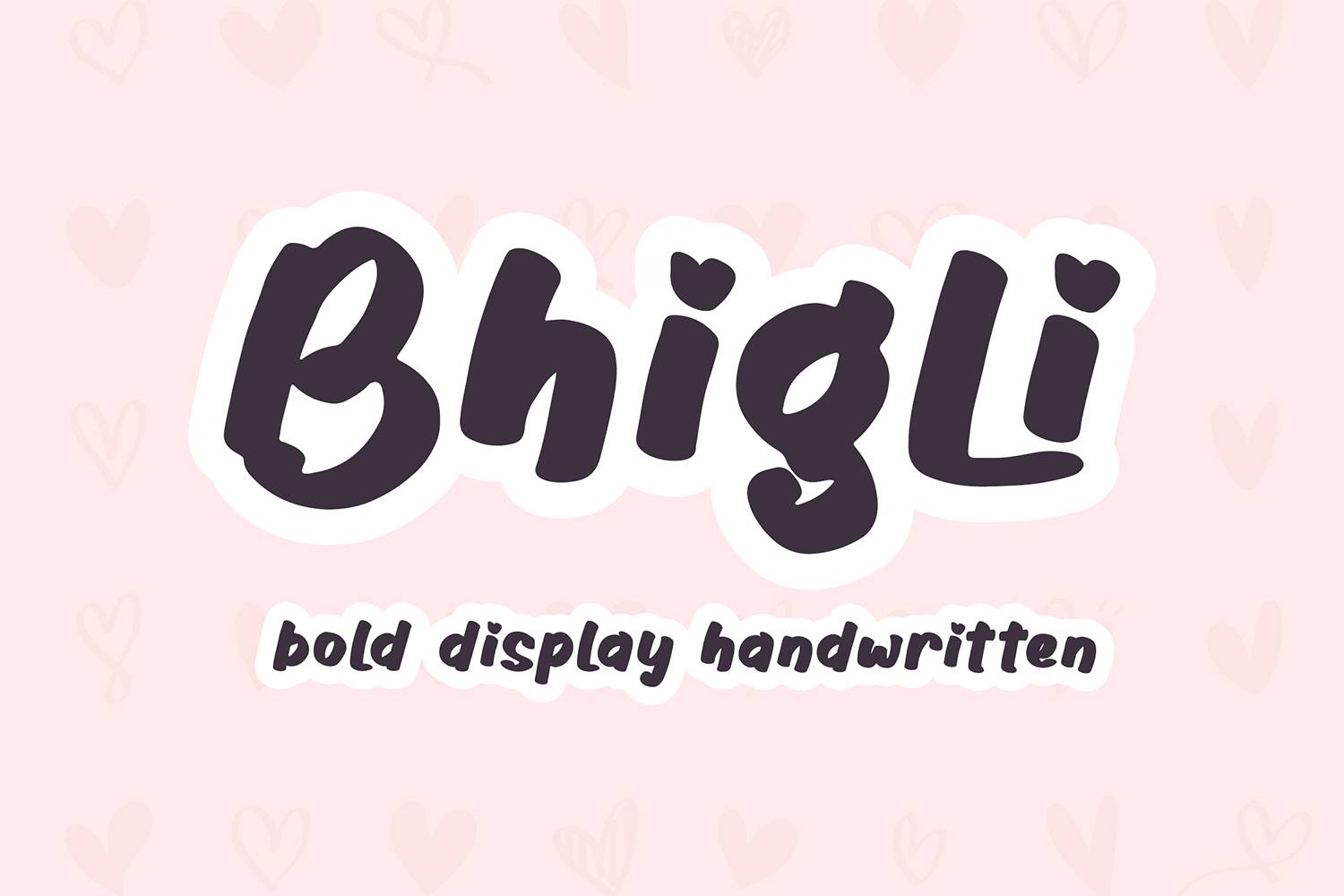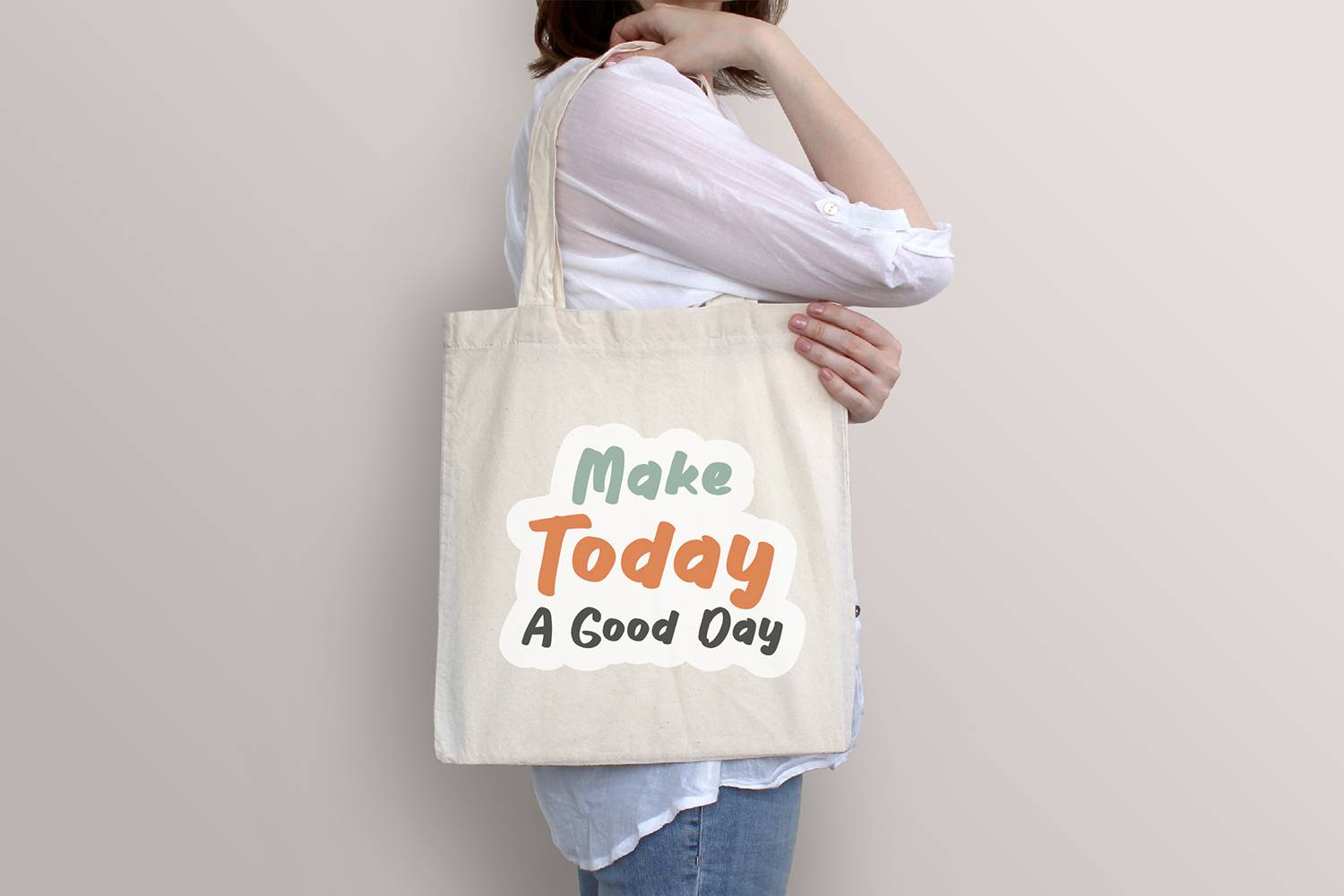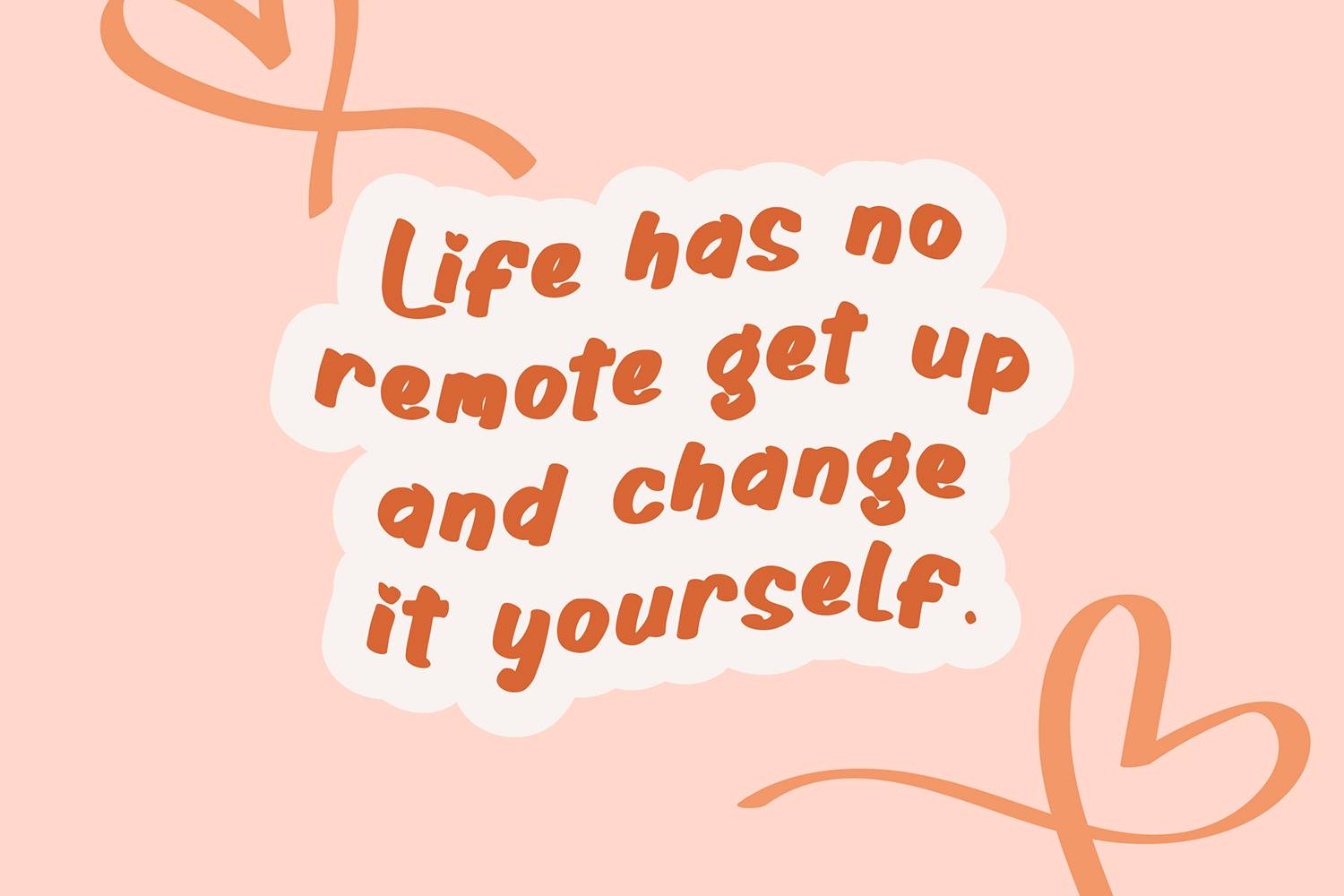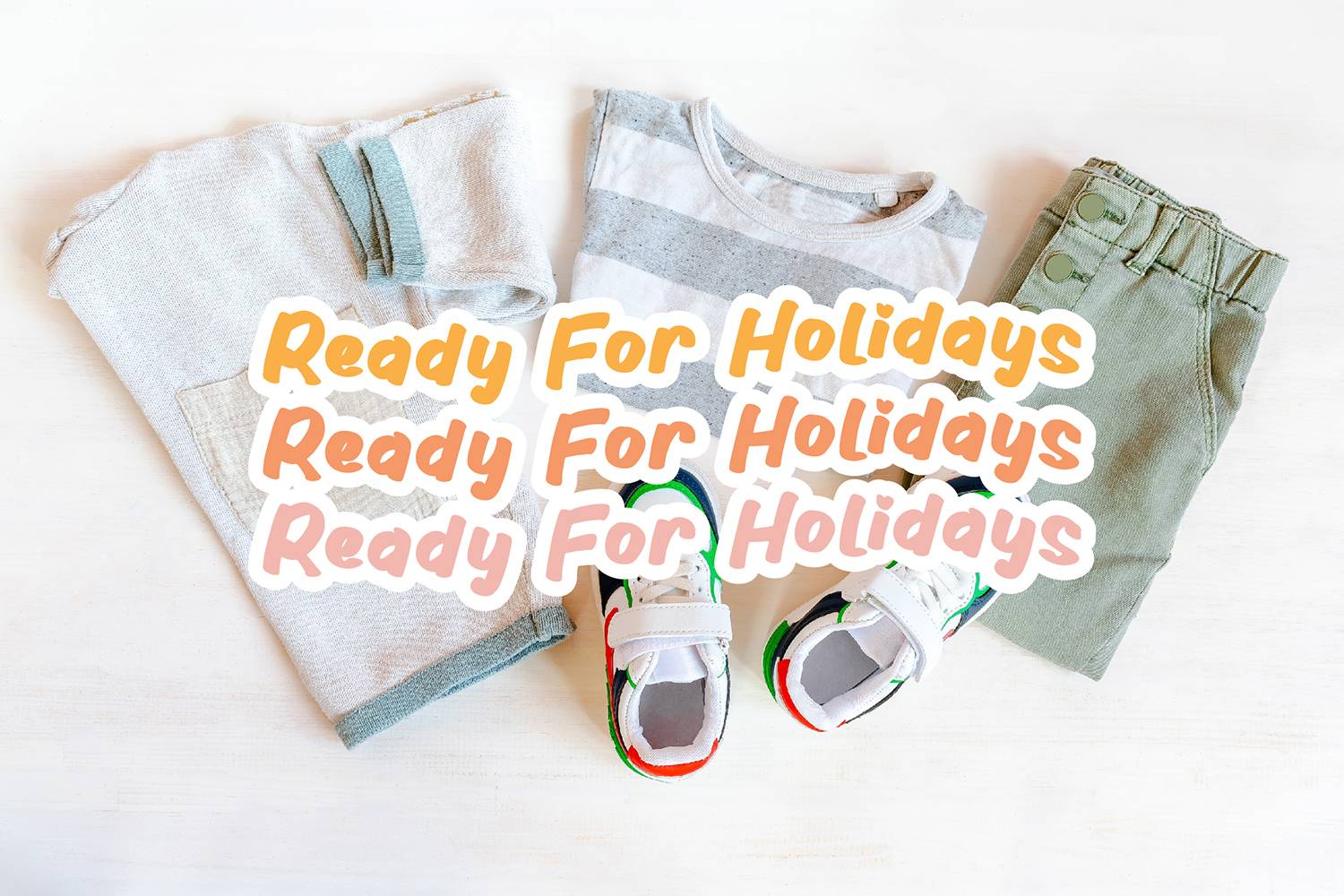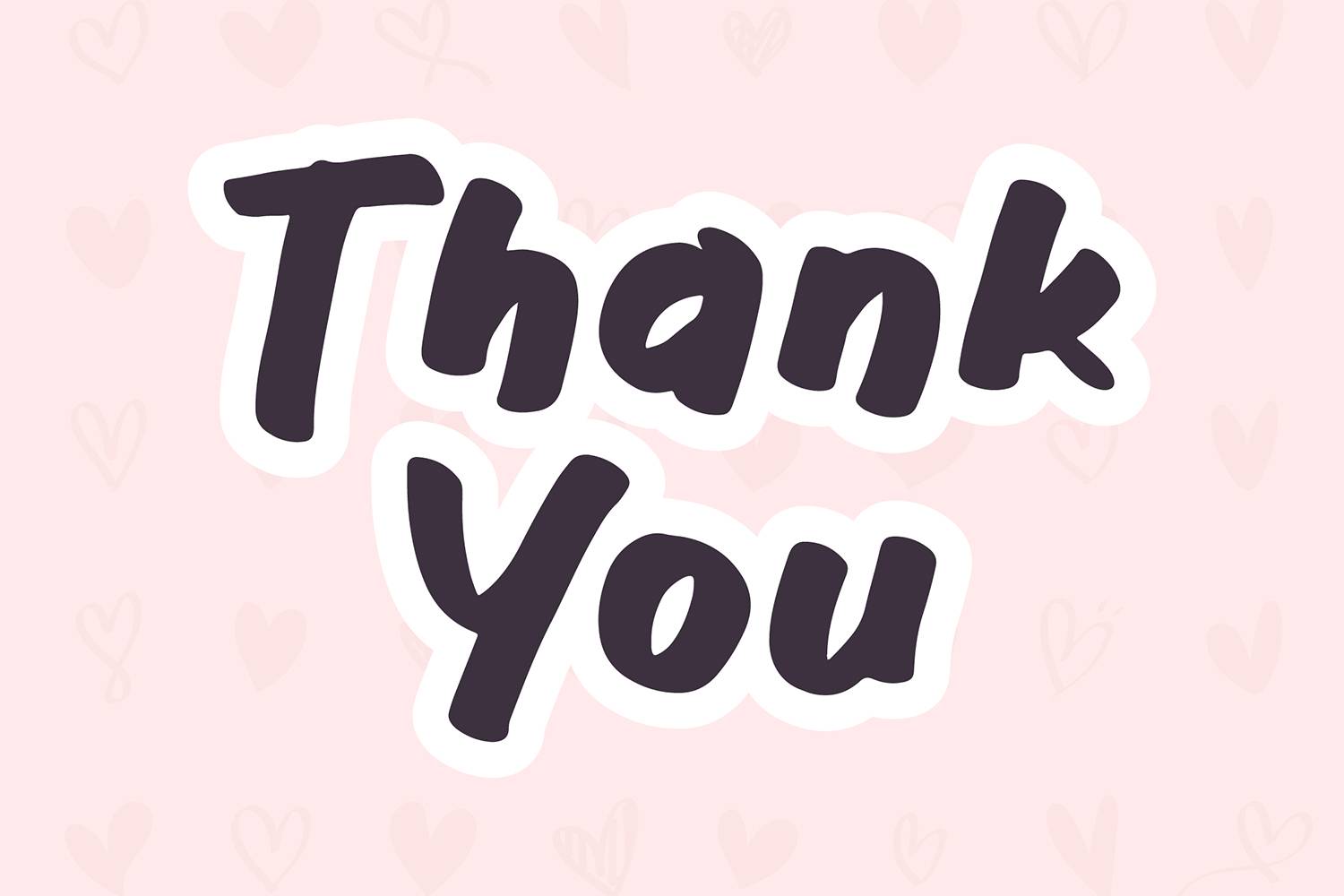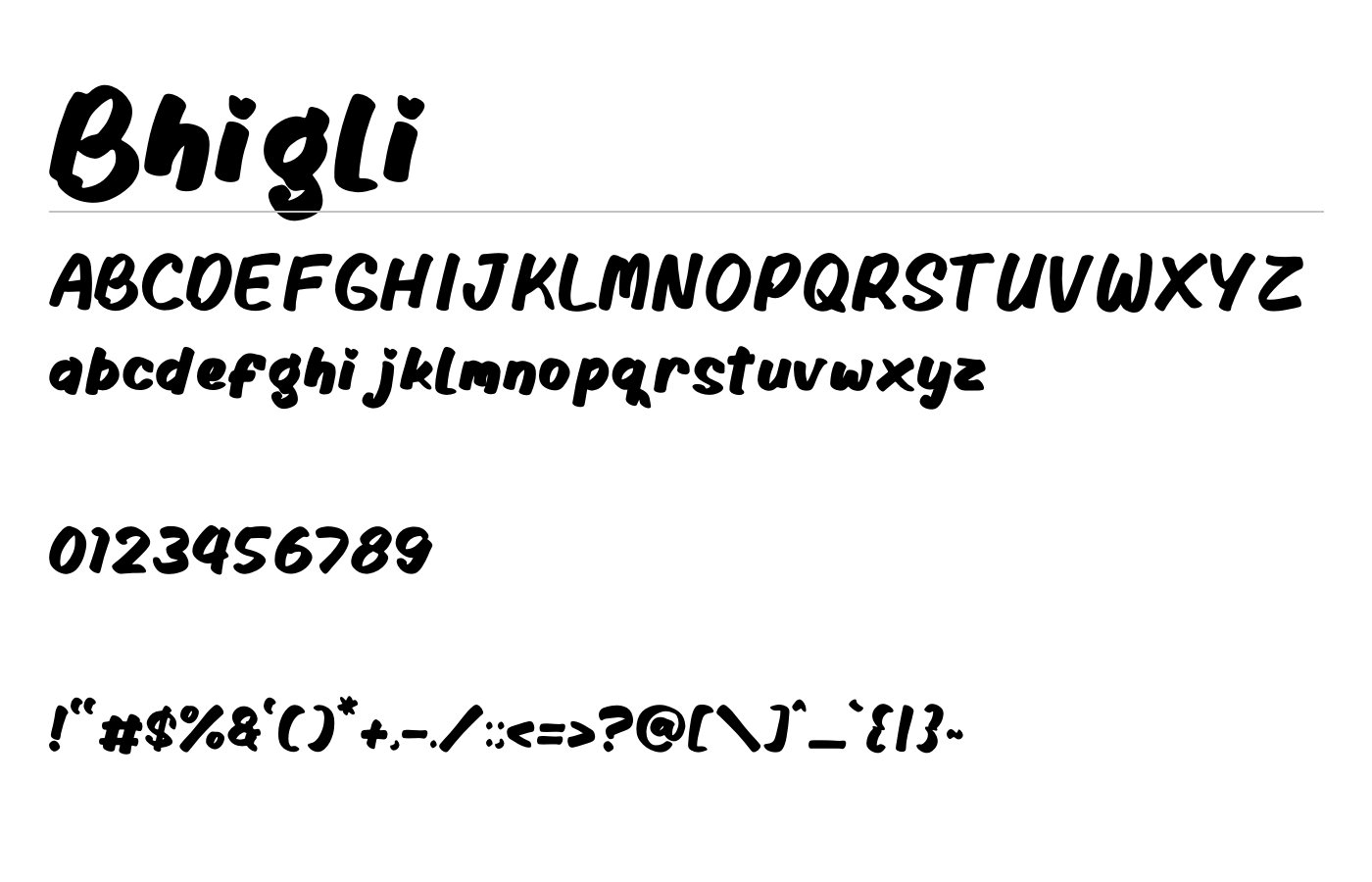
Bhigli is a playful, bold script-style font with a casual and hand-drawn feel, featuring thick strokes and rounded edges that create a warm, inviting personality. Its lively letterforms, including quirky details like heart-shaped dots on the lowercase 'i's, make it ideal for creative projects, children's branding, and informal designs looking to convey friendliness and fun. This font works best in logos, posters, and headings where a charming and approachable aesthetic is desired.
Bhigli Font
About Bhigli Font